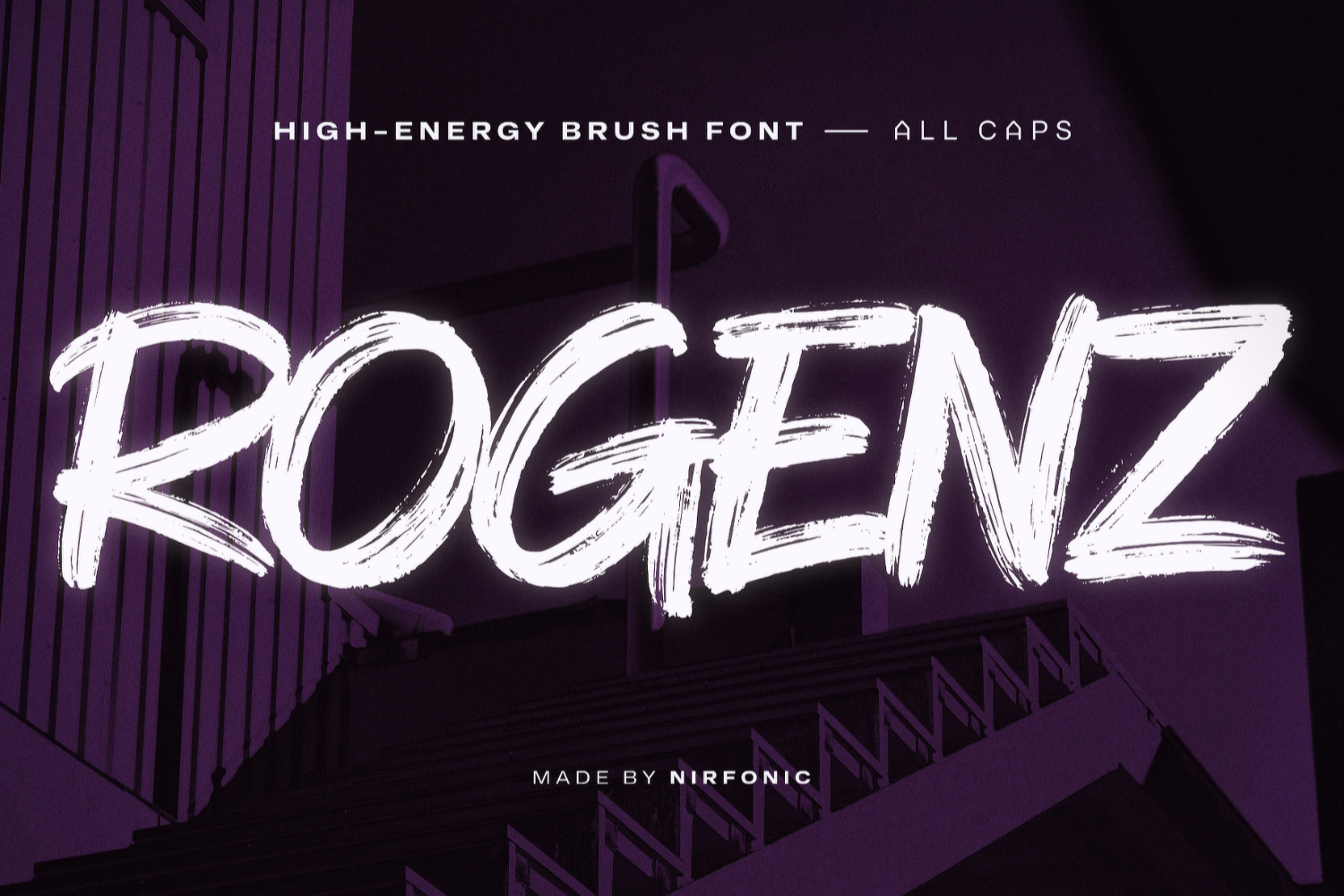
High-Energy Brush Font | ROGENZ
Introducing ROGENZ, the fearless, high-energy brush font that refuses to be ignored.
Built for brands that lead, disrupt, and dominate, ROGENZ embodies the raw power
of handcrafted brush strokes—bold, untamed, and electrifying.
Born for the Streets. Engineered for Impact.
ROGENZ is more than just typography—it’s a statement of rebellion, crafted for
creatives who dare to stand out.
Whether you’re designing streetwear branding, gaming visuals, or extreme sports
campaigns, this font is your secret weapon for unmissable designs.
• Handcrafted, high-energy brush strokes for a wild, rebellious, and fearless impact.
• Striking versatility—from gaming & streetwear to action-packed event posters.
• Unapologetically bold—delivers maximum impact without sacrificing readability.
• Built for next-gen branding—trendy, aggressive, and designed for high-performance creatives.
• Perfect for statement-making designs—because blending in is never an option.